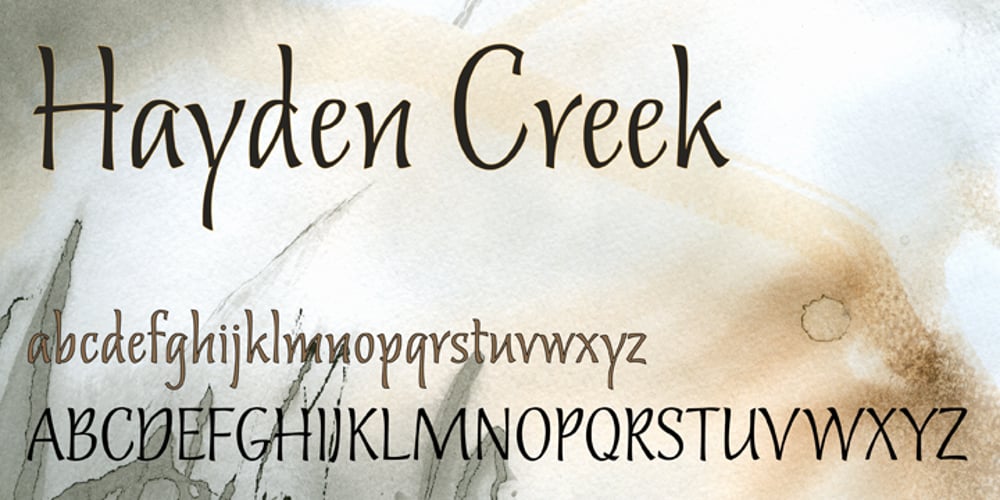
Hayden Creek Font Family was designed by Cecelia Harris and published by Letters by Wordsworth. Hayden Creek contains 1 styles and family package options. Hayden Creek started as a few letters chosen from vibrant brush lettering. It evolved into a unique font that has an underlying movement with a wonderful energy. The jaunty kick-outs on some of the lower case letters are both fun and elegant.